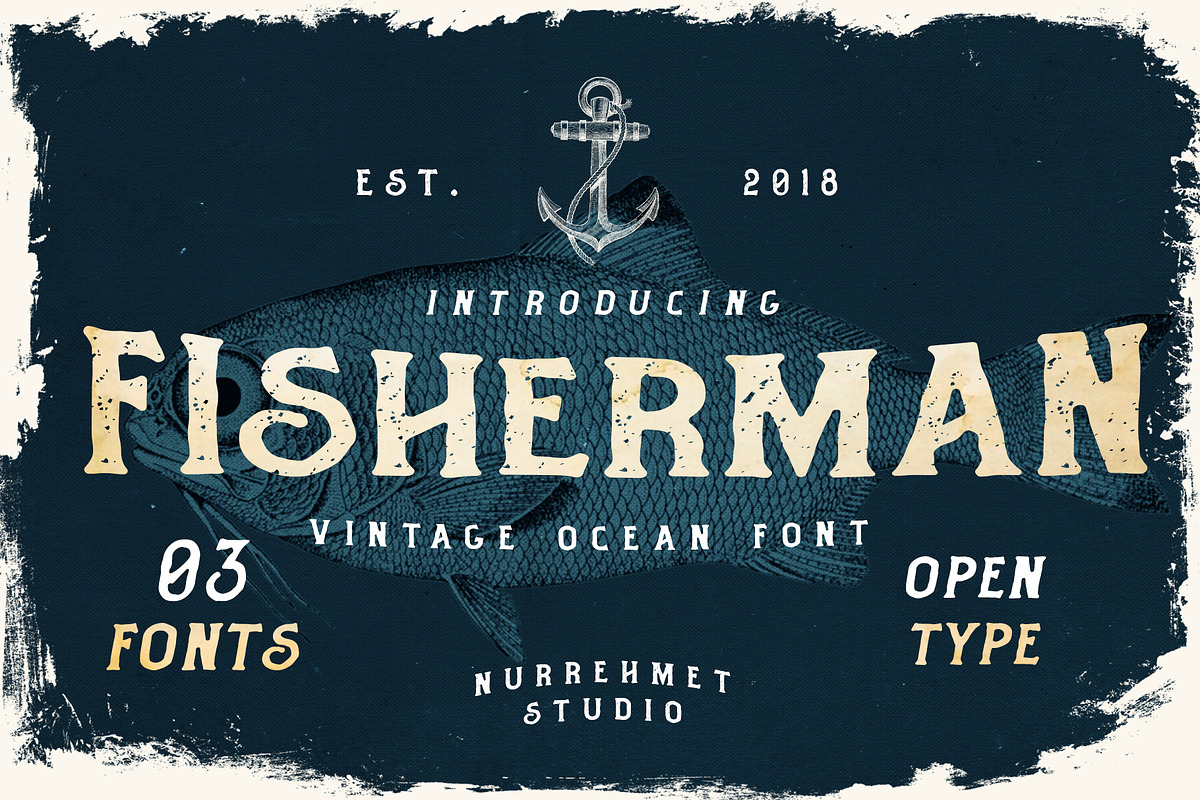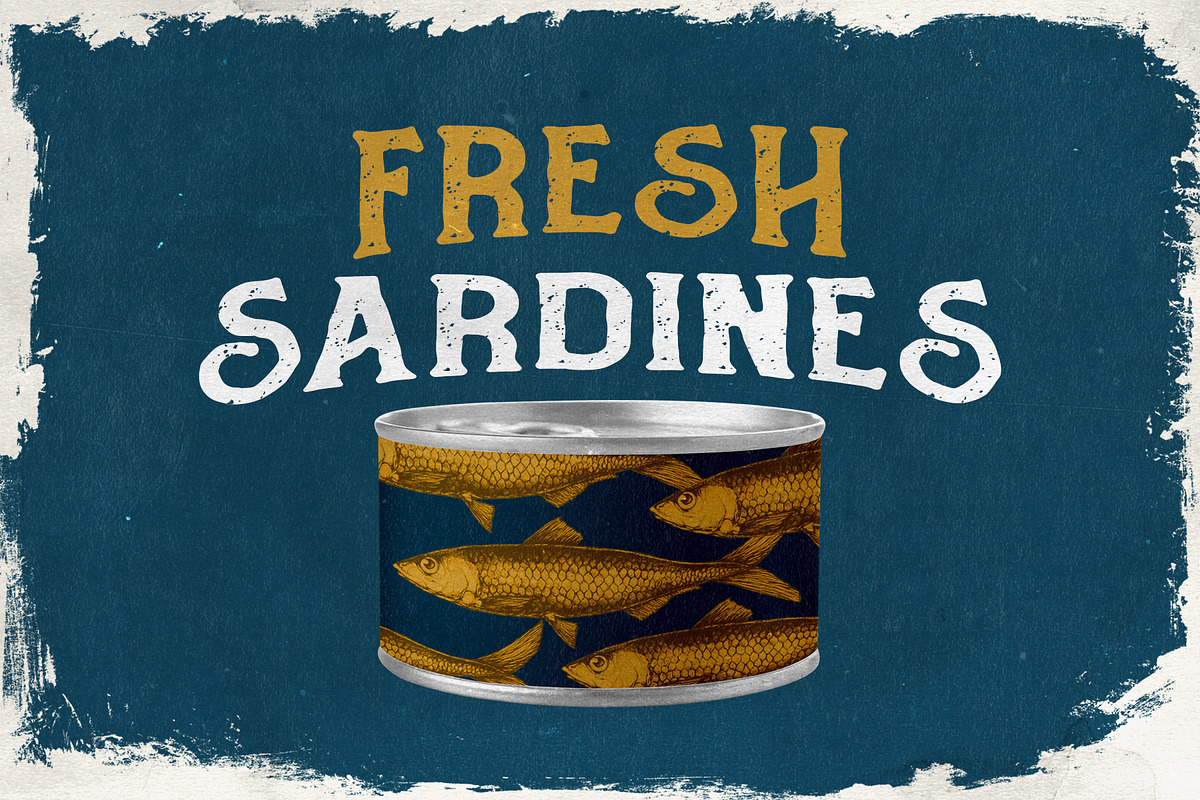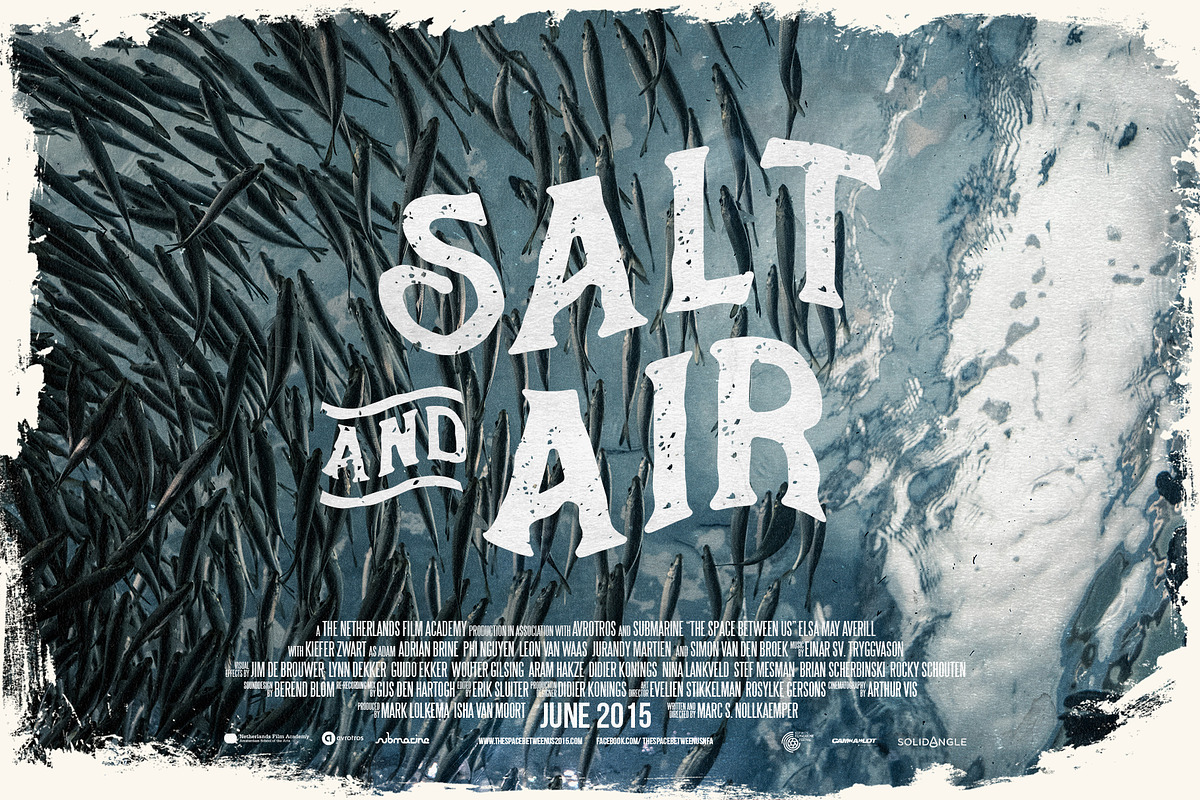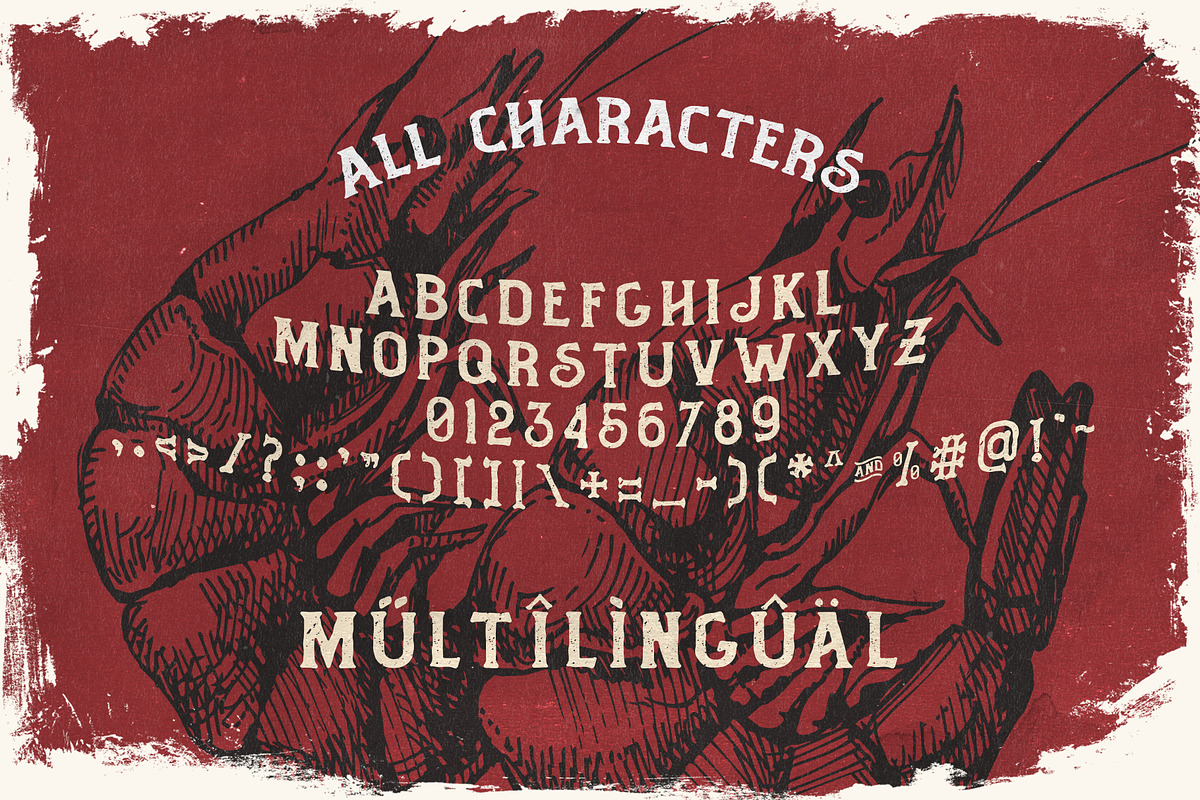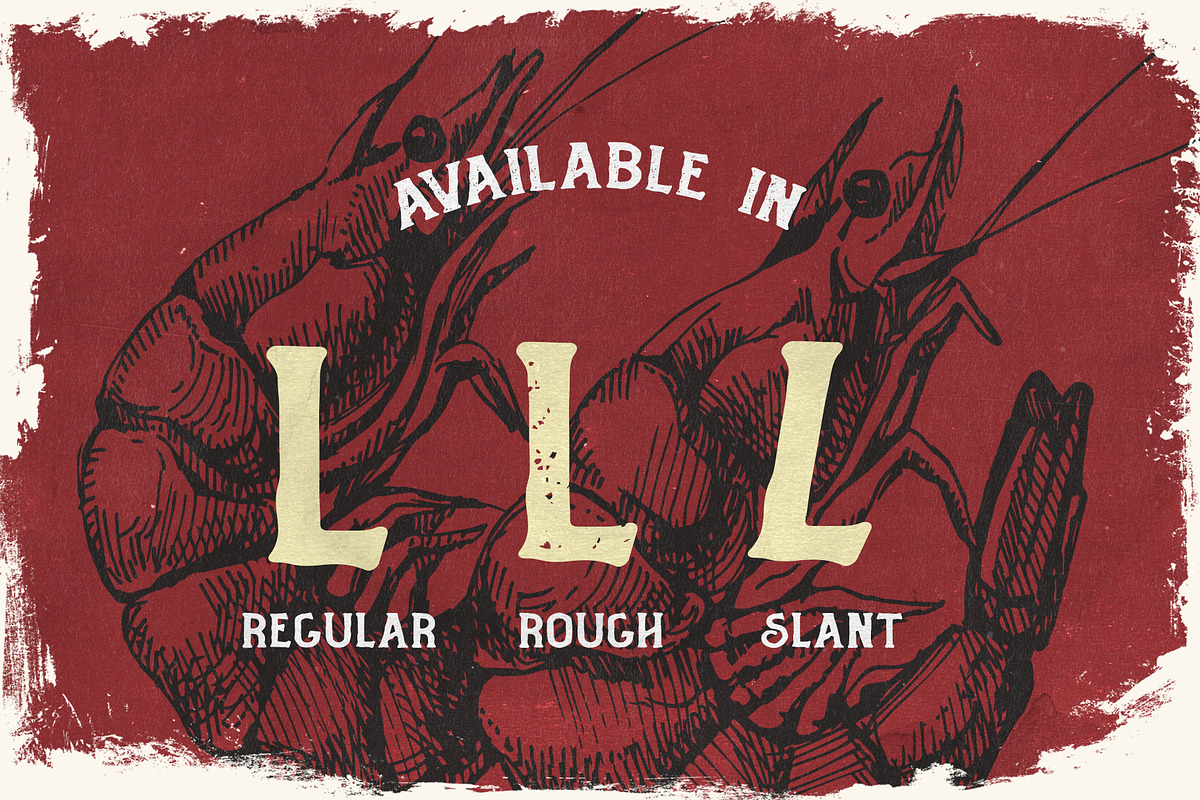
Fisherman - Vintage Ocean Font
Fisherman - Ocean Vintage Fonts (3 Fonts)
A spirit of the ocean made Fisherman Fonts, it haves a vintage yet ocean feels for your every project with ocean or sea themed and y'all know? it haves 3 styles! regular rough and slant, just pick your best :)
Fisherman Fonts is perfect for branding projects, logo, wedding designs, social media posts, advertisements, product packaging, product designs, label, photography, watermark, invitation, stationery and any projects that need ocean and beach feels.